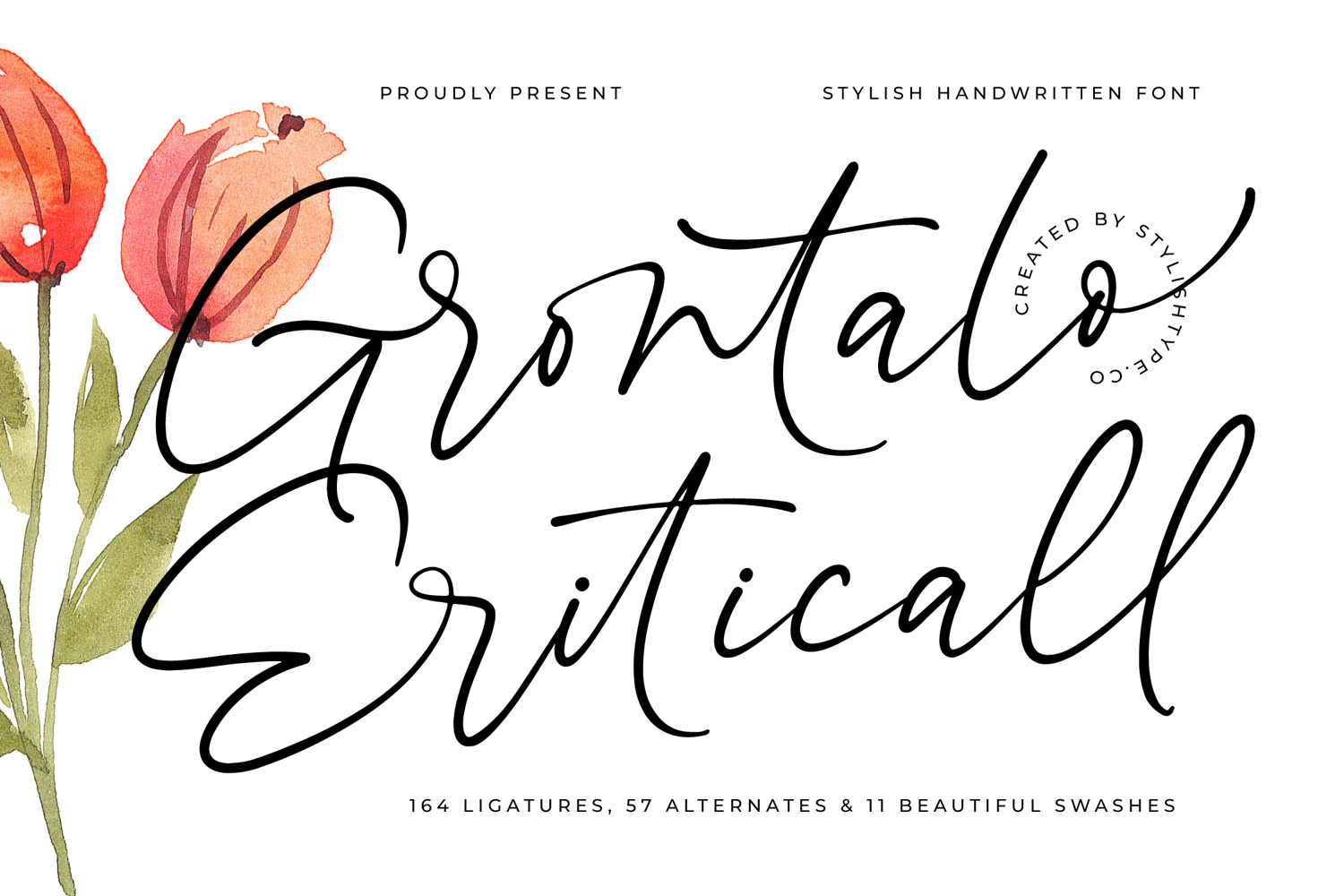
Grontalo Eriticall - Stylish Handwritten Font
Grontalo Eriticall
Grontalo Eriticall Italic
Grontalo Eriticall - Stylish Handwritten Font. This exquisite script typeface captures the delicate energy and genuine flow of natural handwriting, offering a bold yet refined statement. Its delicate lines and sweeping connections create an atmosphere of immediate sophistication, making every word feel bespoke. The font’s dynamic rhythm ensures that headings and display text possess unmatched visual magnetism, commanding attention with its high-contrast elegance.